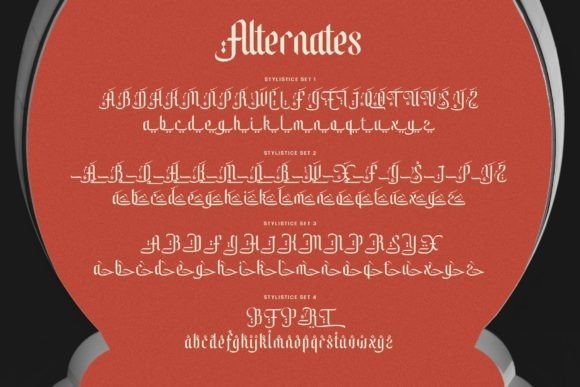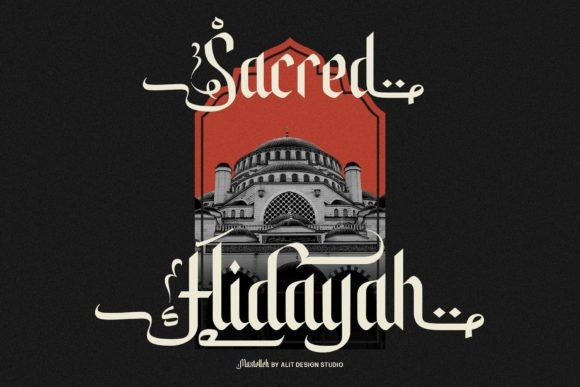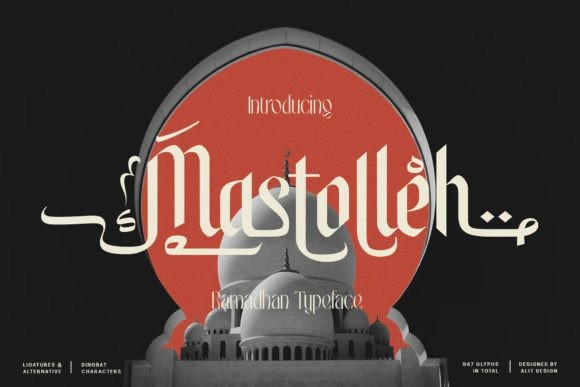
Mastolleh Font
Mastolleh Display Font is an Arabic font with a blackletter style and beautiful swashes. It is a highly versatile font that can be used for a variety of design projects. This font is designed specifically for users who require a font that can handle various writing systems and special characters.